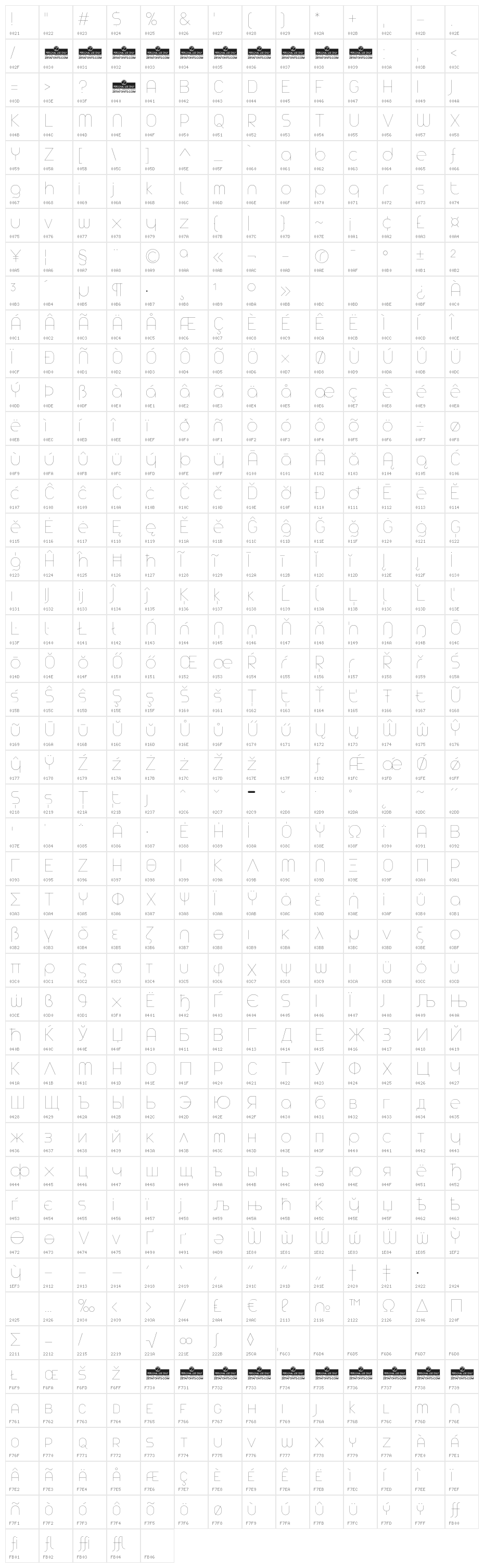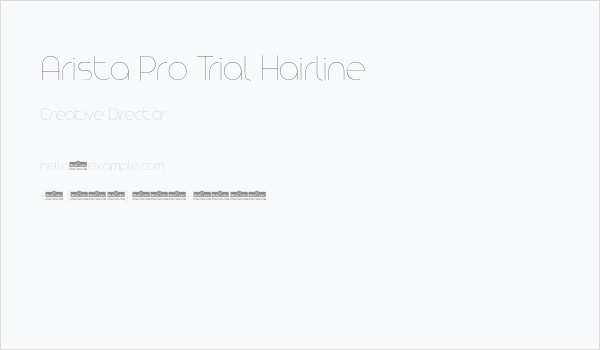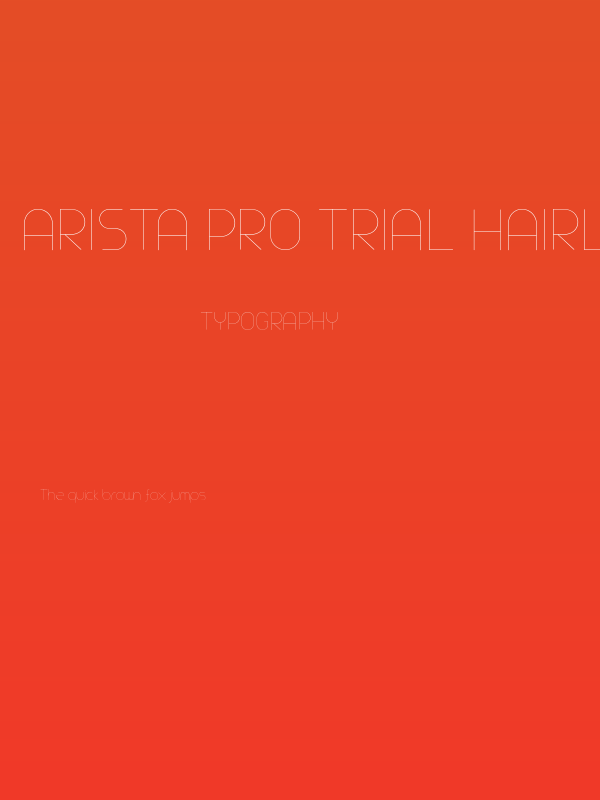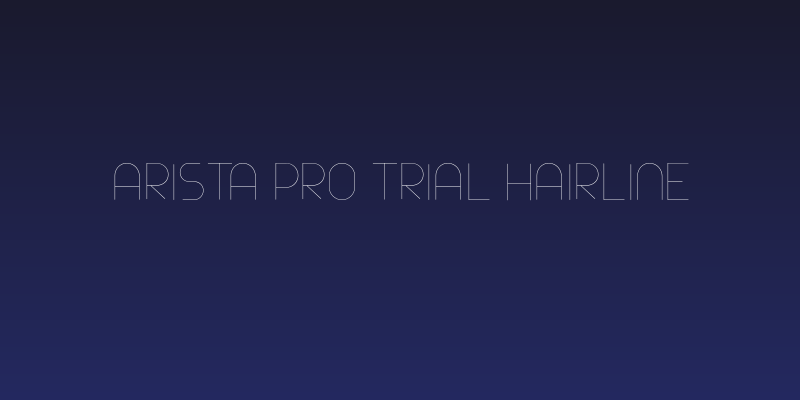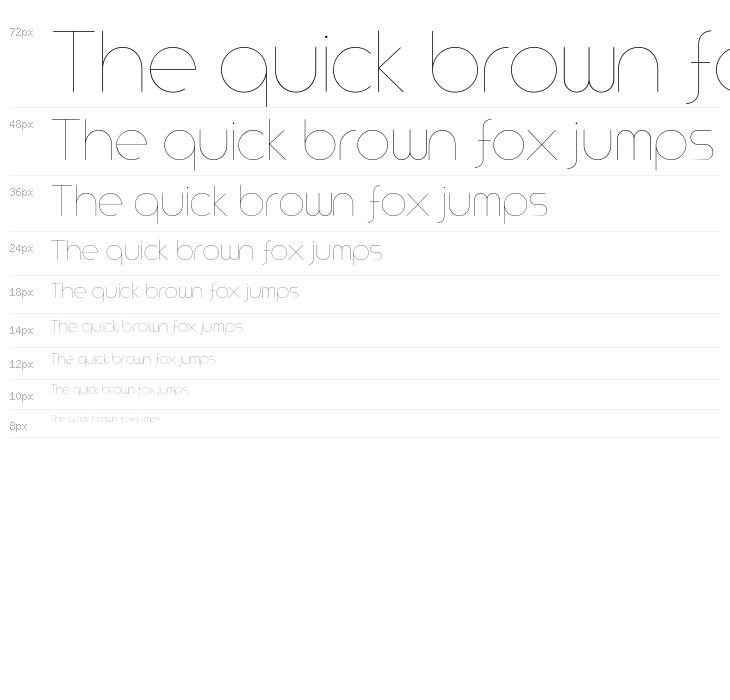
Arista Pro Trial Hairline Font
Arista Pro Trial Hairline Description
This font features a sleek, ultra-thin design with a modern aesthetic. The characters are crafted with precision, showcasing a minimalist style that emphasizes clean lines and geometric shapes. The uppercase and lowercase letters maintain a consistent height, contributing to a harmonious appearance. The numerals and special characters are designed to complement the overall style, ensuring readability and elegance. This font's hairline weight makes it ideal for creating a sophisticated and contemporary look, suitable for various design applications.
| Proposed Projects | Ideal for high-end branding, minimalist posters, modern websites, and elegant invitations. |